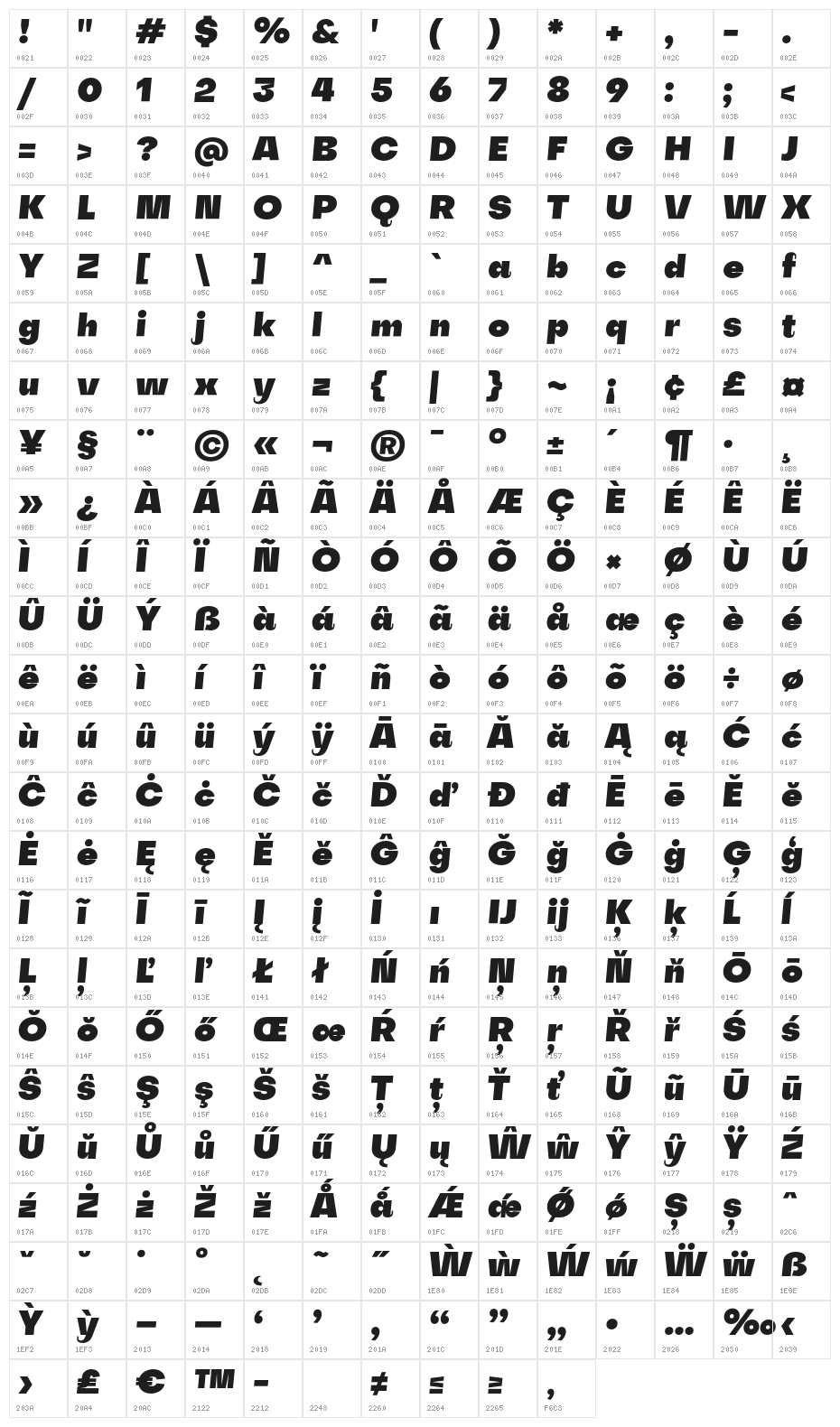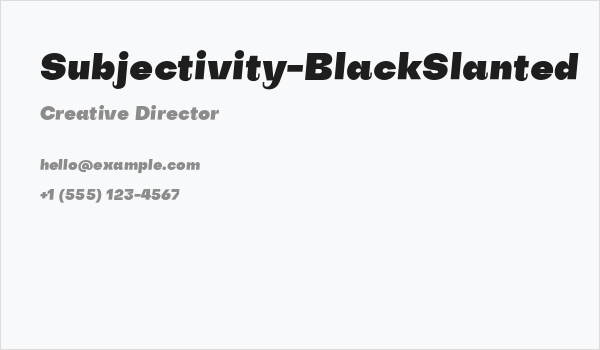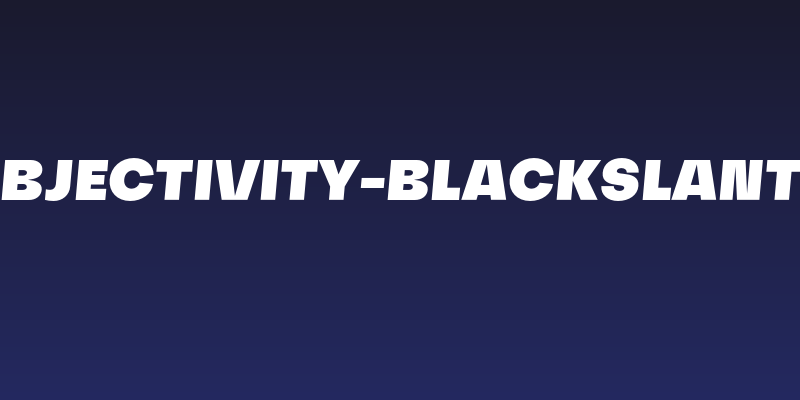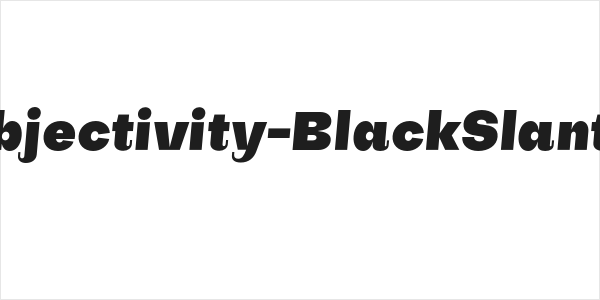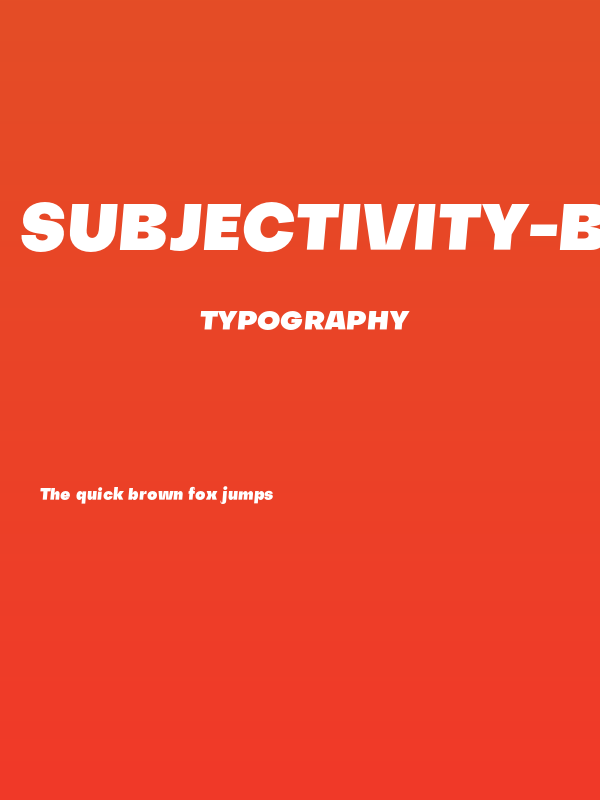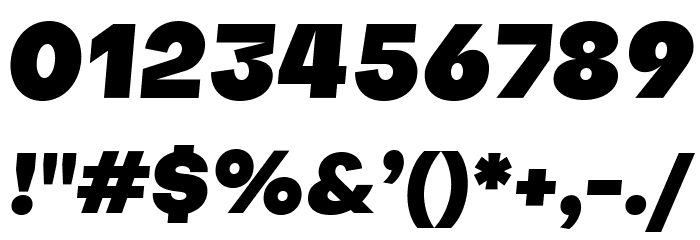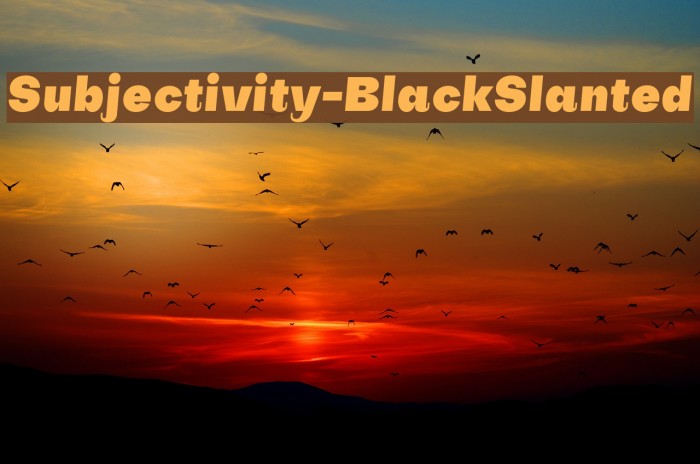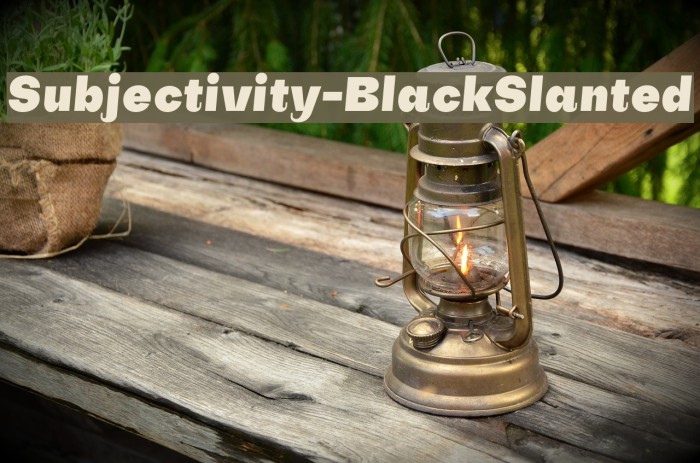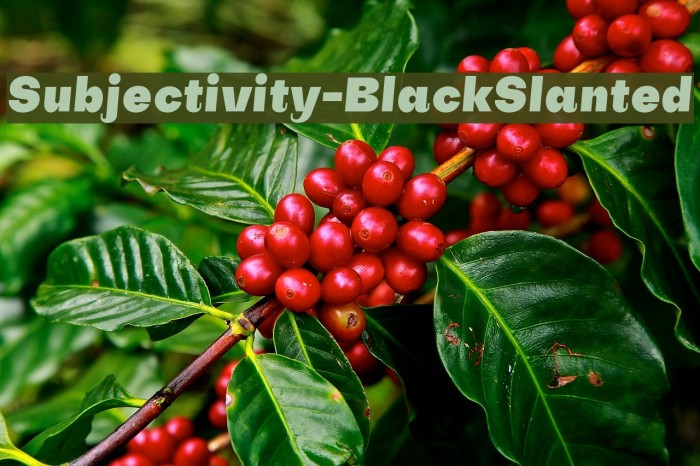
Subjectivity-BlackSlanted Font
Subjectivity-BlackSlanted Description
This font features a bold and dynamic style with a pronounced slant, giving it a sense of movement and energy. The characters are thick and robust, making them highly visible and impactful. The uppercase and lowercase letters maintain a consistent weight, ensuring readability while adding a touch of modern flair. The numbers and special characters are equally bold, complementing the overall aesthetic. The font's design is suitable for making strong statements and capturing attention.
| Proposed Projects | Ideal for branding, advertising, poster design, and any project requiring a strong visual impact. |